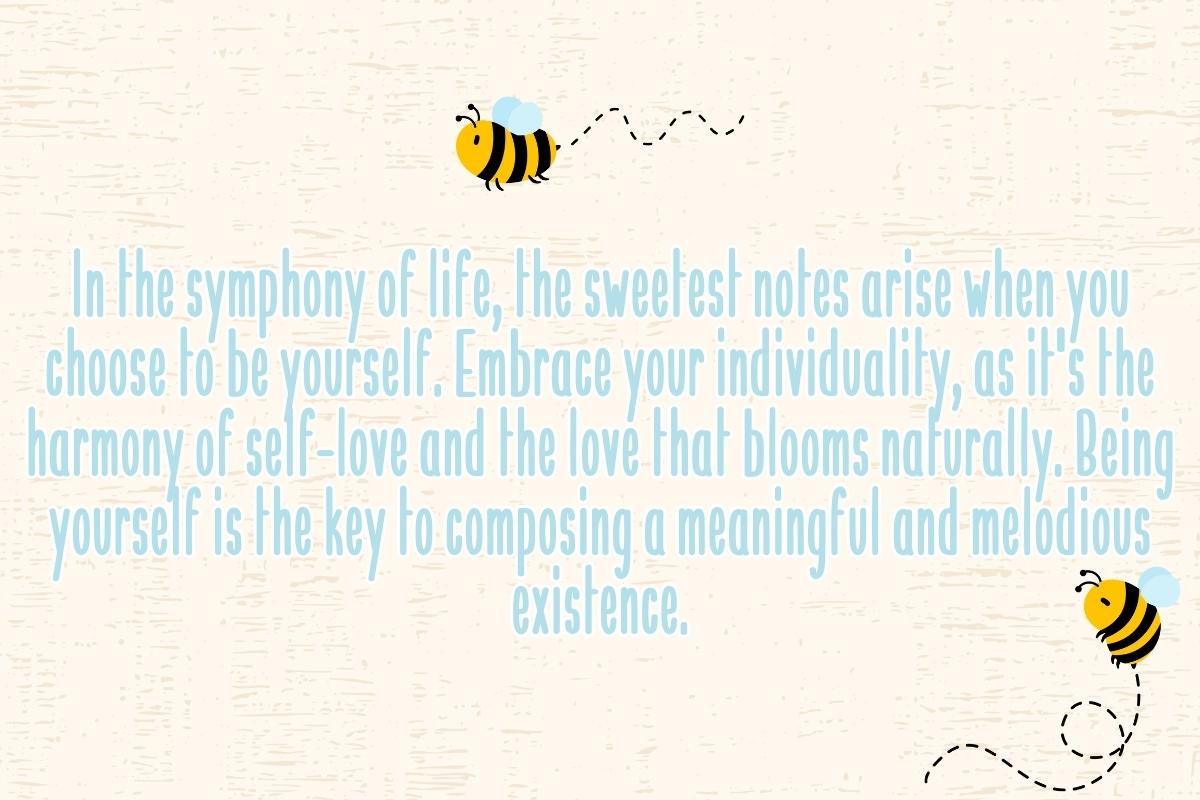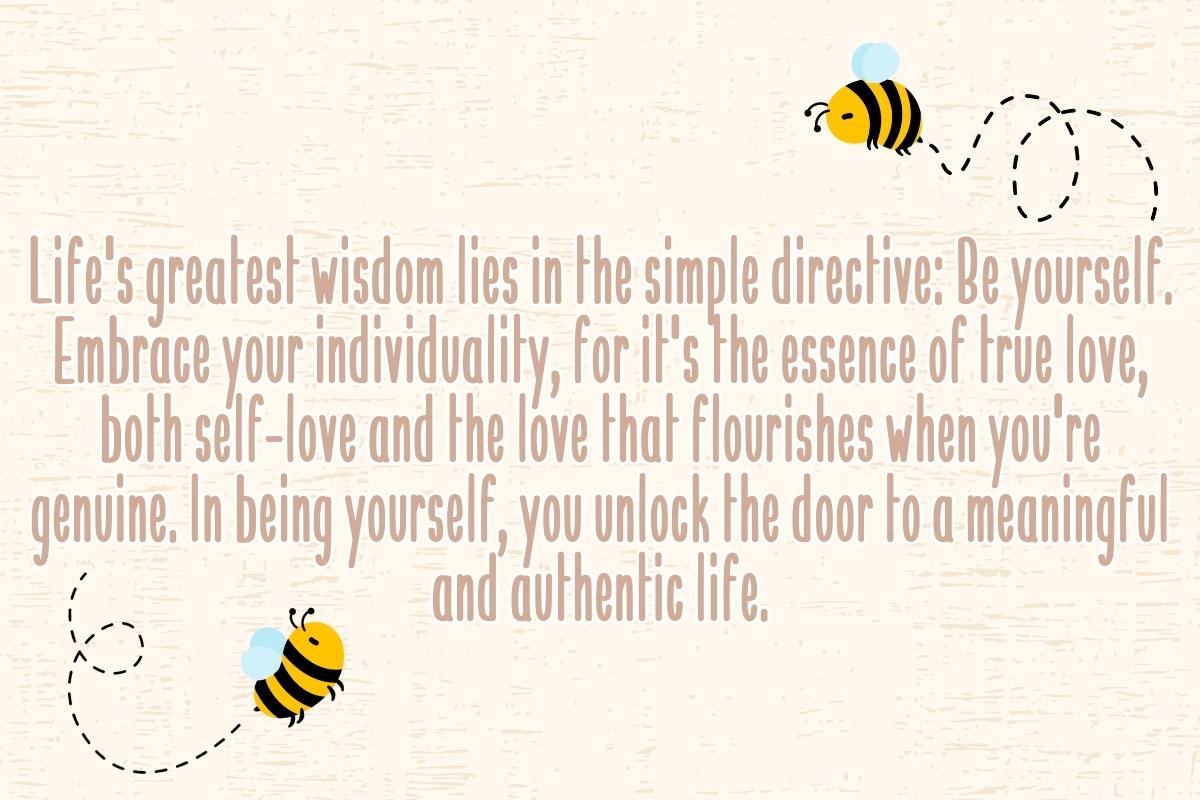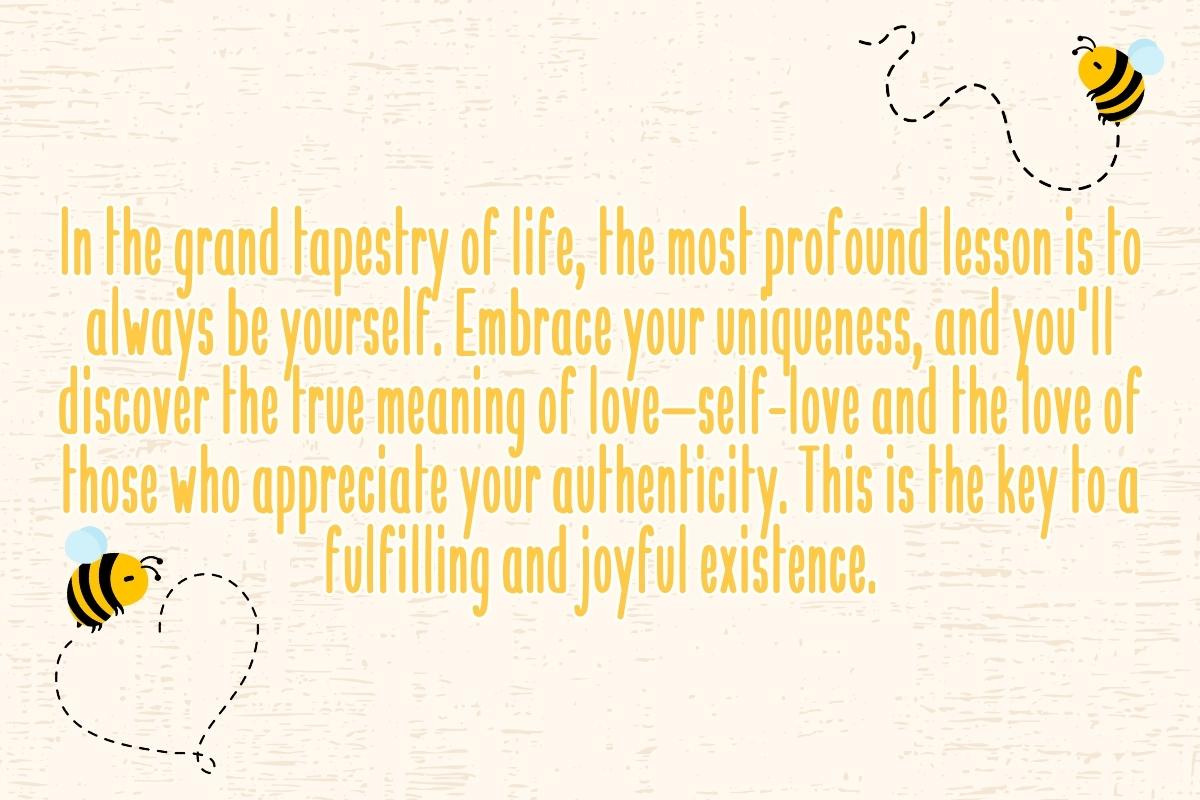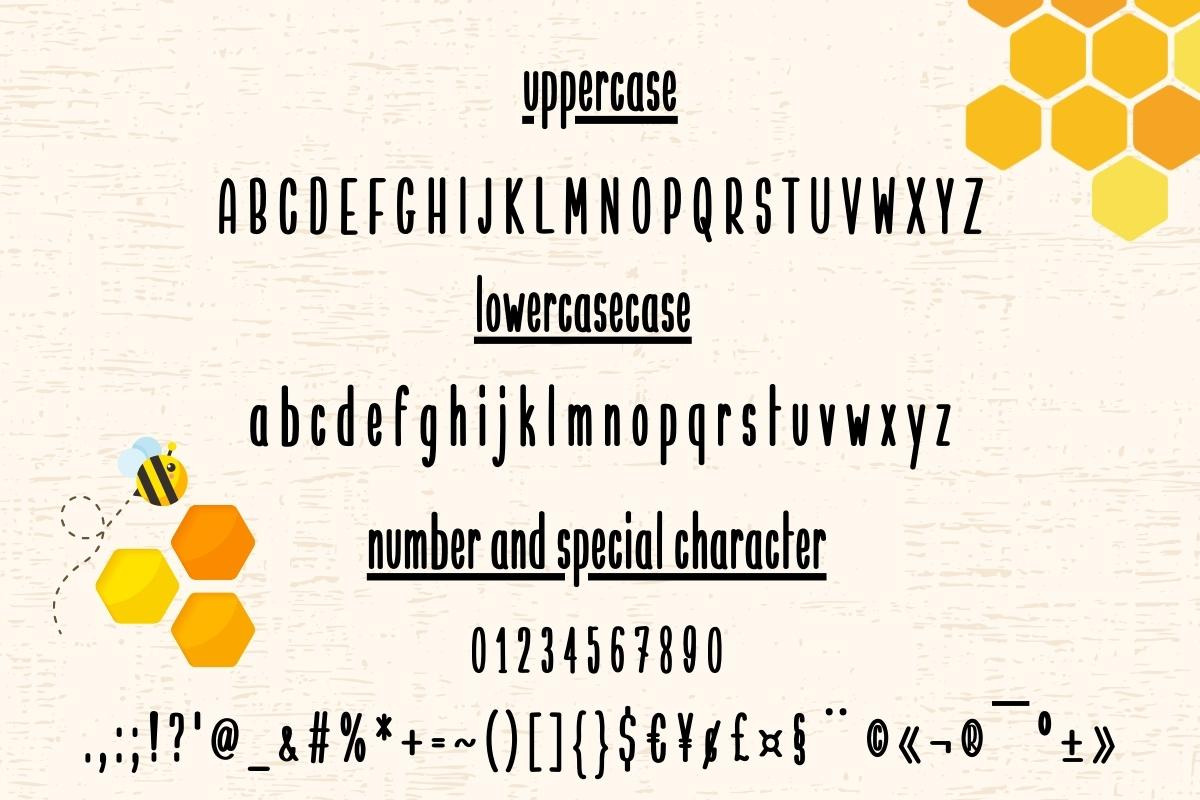
Honey Lemon Bliss - Handwritting
Honey Lemon Bliss is an enchanting Script Font that perfectly embodies the essence of Display Fonts and Handwritten Fonts. This Cute Font exudes a playful yet elegant charm, making it an ideal choice for a wide range of design projects. With its whimsical strokes and delightful personality, Honey Lemon Bliss adds a sweet touch of creativity to your work, ensuring it stands out with its unique character.